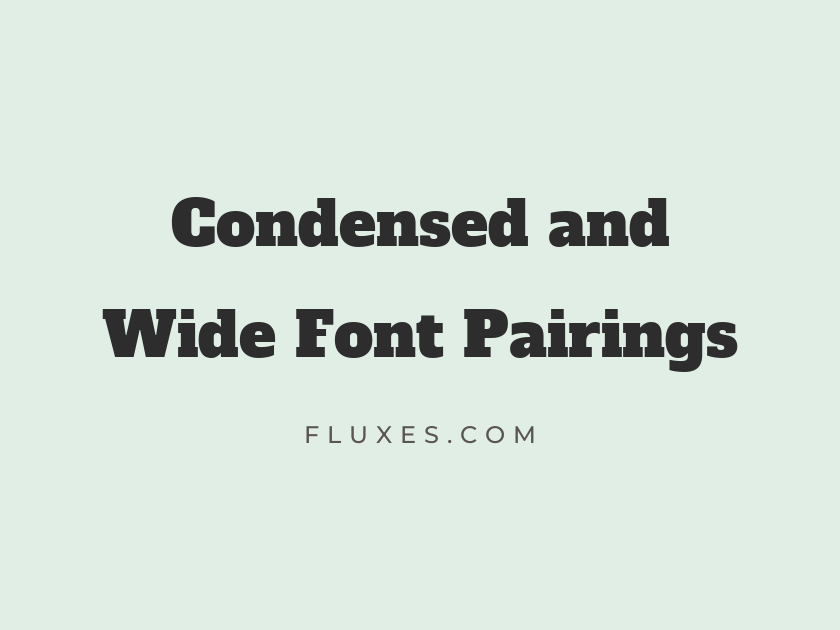
11 Best Condensed and Wide Font Pairings
Condensed and wide type sit at opposite ends of the width spectrum, which is exactly why they make such effective partners. A tall, narrow condensed font can carry a lot of information in a small footprint, while a wide display font commands attention the moment it appears, so putting one to work as a headline and the other as supporting text gives a layout both punch and efficiency. These Google Fonts pairings lean into that contrast rather than fighting it.
1. Alfa Slab One + Roboto Condensed
A lean, narrow body face keeps the copy efficient under a heavy display headline.
Roboto Condensed
Alfa Slab One’s thick, wide slab serifs read as solid blocks of ink, so pairing it with something lighter and narrower keeps the page from feeling top-heavy. Roboto Condensed’s tight letterforms set a lot of text in a small space, which makes this combination handy for posters and promotional banners where the headline needs to dominate but the fine print still has to fit.
2. Bevan + Barlow Condensed
A neutral grotesque body text balances the character of a vintage wide slab headline.
Bevan carries a rounded, wide slab shape with a distinctly vintage packaging feel, and it needs a body partner that will not compete for personality. Barlow Condensed’s plain grotesque structure does exactly that, staying out of the way while still holding its own in labels, menus, and craft branding.
3. Patua One + PT Sans Narrow
Patua One
Tall, tight columns of text sit comfortably beneath an open, friendly poster headline.
PT Sans Narrow
Patua One has the generous, open counters of a hand painted sign, giving it a welcoming poster presence. PT Sans Narrow answers with tall, economical letterforms that read easily even in small blocks, a useful trait for flyers and community signage where space is always tight.
4. Modak + Archivo Narrow
A disciplined narrow sans keeps the supporting copy readable and grounded.
Archivo Narrow
Modak’s inflated, extra wide bowls give it a playful, almost balloon-like energy that suits children’s brands and festival material. Archivo Narrow’s restrained proportions rein that exuberance in just enough to keep body copy legible rather than novelty.
5. Bungee + Fjalla One
A condensed grotesque body echoes the urban sign painted mood without shouting.
Bungee and Fjalla One share an urban, sign painted sensibility, but Bungee’s extreme width and blocky counters need a much quieter partner in text sizes. Fjalla One’s condensed frame keeps the same attitude alive while staying legible for captions and body paragraphs.
6. Ultra + Cabin Condensed
A warm, humanist narrow sans settles the mood after a heavy display headline.
Cabin Condensed
Ultra’s slab serifs are so bold and wide that they practically shout, which makes it a natural fit for retro or Americana themed projects. Cabin Condensed brings a humanist warmth and narrower footprint that calms the composition down once the eye moves into the body text.
7. Titan One + Saira Condensed
A technical condensed sans keeps scoreboard and stat text sharp at small sizes.
Saira Condensed
Titan One’s rounded, wide caps have become a familiar shorthand for sports and gaming branding. Saira Condensed’s slightly narrow, technical grotesque holds up well at small sizes, which is exactly what scoreboards, stat blocks, and esports interfaces demand.
8. Rammetto One + Khand
A condensed geometric body offers restraint beneath a chunky, friendly headline.
Khand
Rammetto One’s chunky, wide slab serifs carry a rounded, friendly weight that suits casual food and lifestyle branding. Khand’s condensed geometric letterforms contrast in both width and mood, giving menus and packaging a headline with punch and body copy that stays out of the way.
9. Yeseva One + Yanone Kaffeesatz
A low contrast condensed sans tempers the romantic curves of the headline above.
Yanone Kaffeesatz
Yeseva One is a wide, high contrast display serif with romantic, almost calligraphic curves. Yanone Kaffeesatz’s condensed, low contrast letterforms keep the pairing from tipping into overly ornate territory, which is why it works so well for boutique and editorial fashion projects.
10. Coda + Teko
Coda
A related grotesque narrows the same structural logic down for body copy.
Tips for using condensed and wide fonts together
Let the wide font carry the headline and the condensed font handle everything smaller; reversing that balance usually looks cramped.
Check x-height and stroke weight before finalizing a pair, since a very heavy wide display font can overpower a thin condensed body at small sizes.
Test both fonts in an actual layout, not just as isolated words, because width contrast reads very differently across a full paragraph than it does in a single headline.